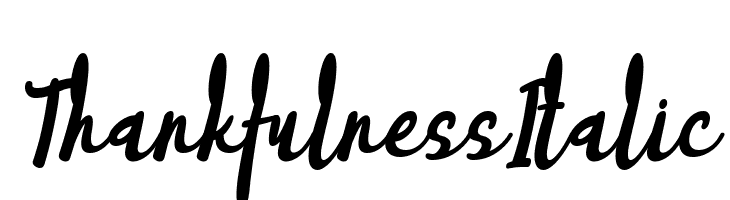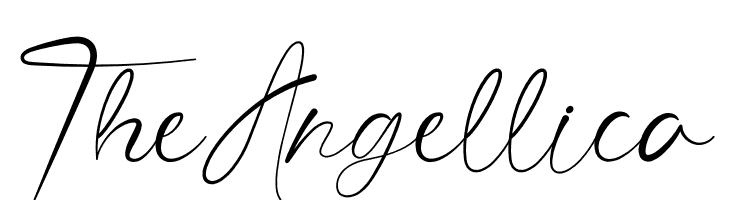
A bold, cursive script font with a lively and dynamic handwritten style.
A bold, three-dimensional font with a geometric and shadowed style.
A bold, 3D geometric font with a modern, dynamic style.
A bold, decorative font with diagonal stripes and a playful, whimsical style.
A decorative serif font with ornate uppercase letters and classic lowercase forms.
A modern, sleek font with elongated, consistent strokes and unique character twists.
A modern, sleek font with elongated, geometric letterforms and unique curves.
A bold, angular font with a futuristic and geometric design.
A bold, geometric font with a futuristic and structured design.
An elegant cursive script font with flowing, connected letters and stylish curves.